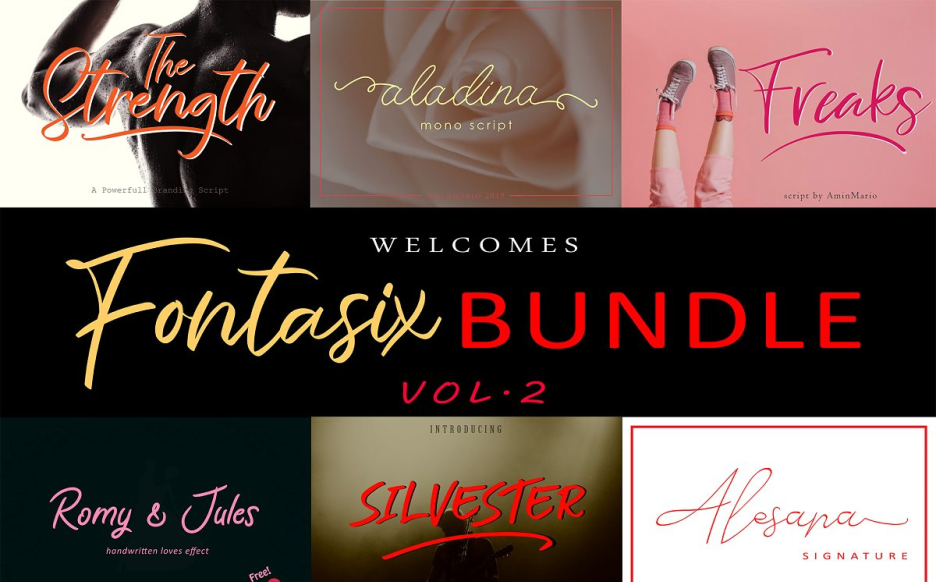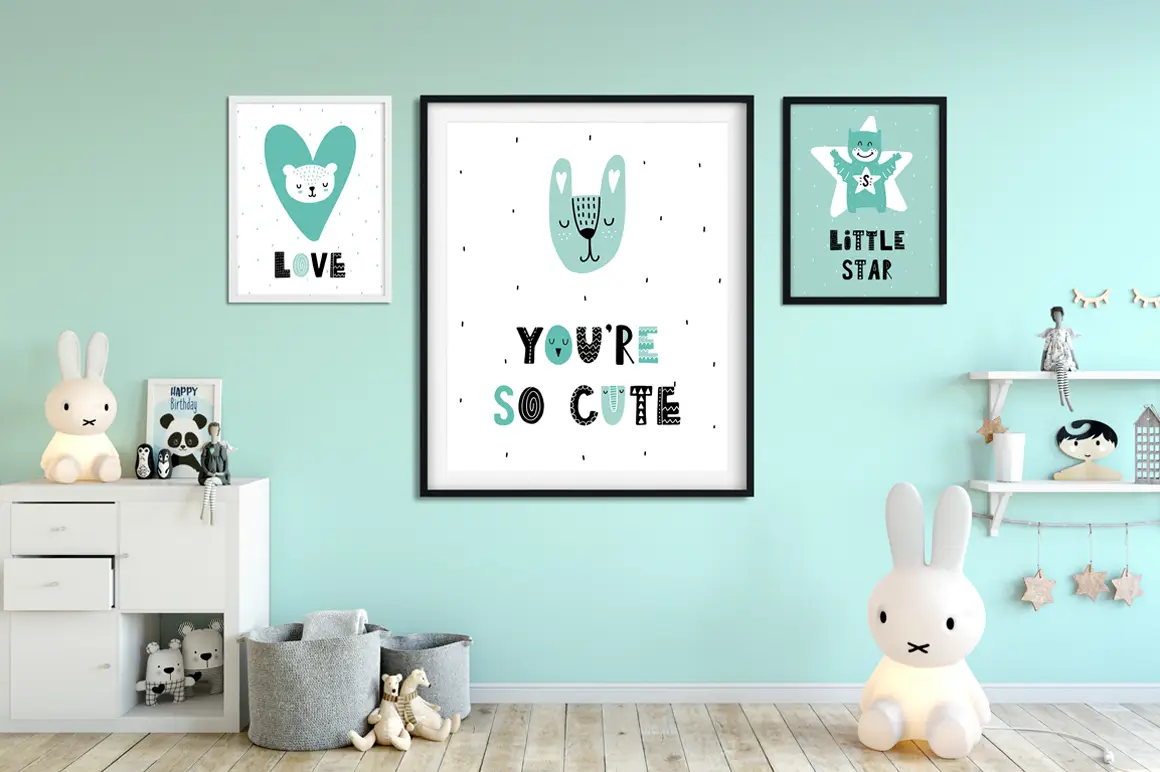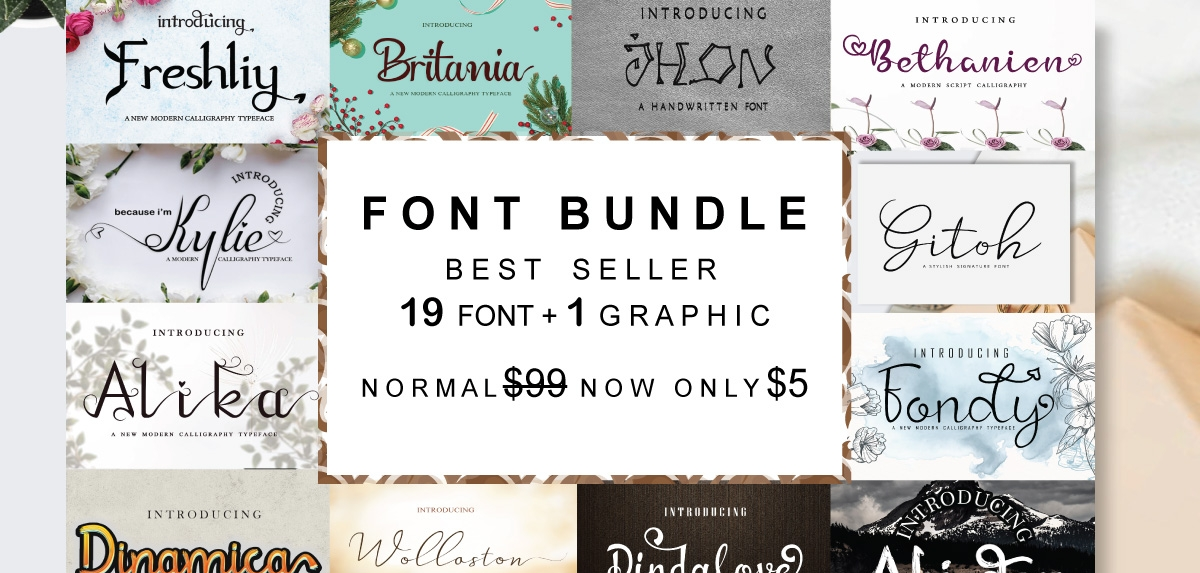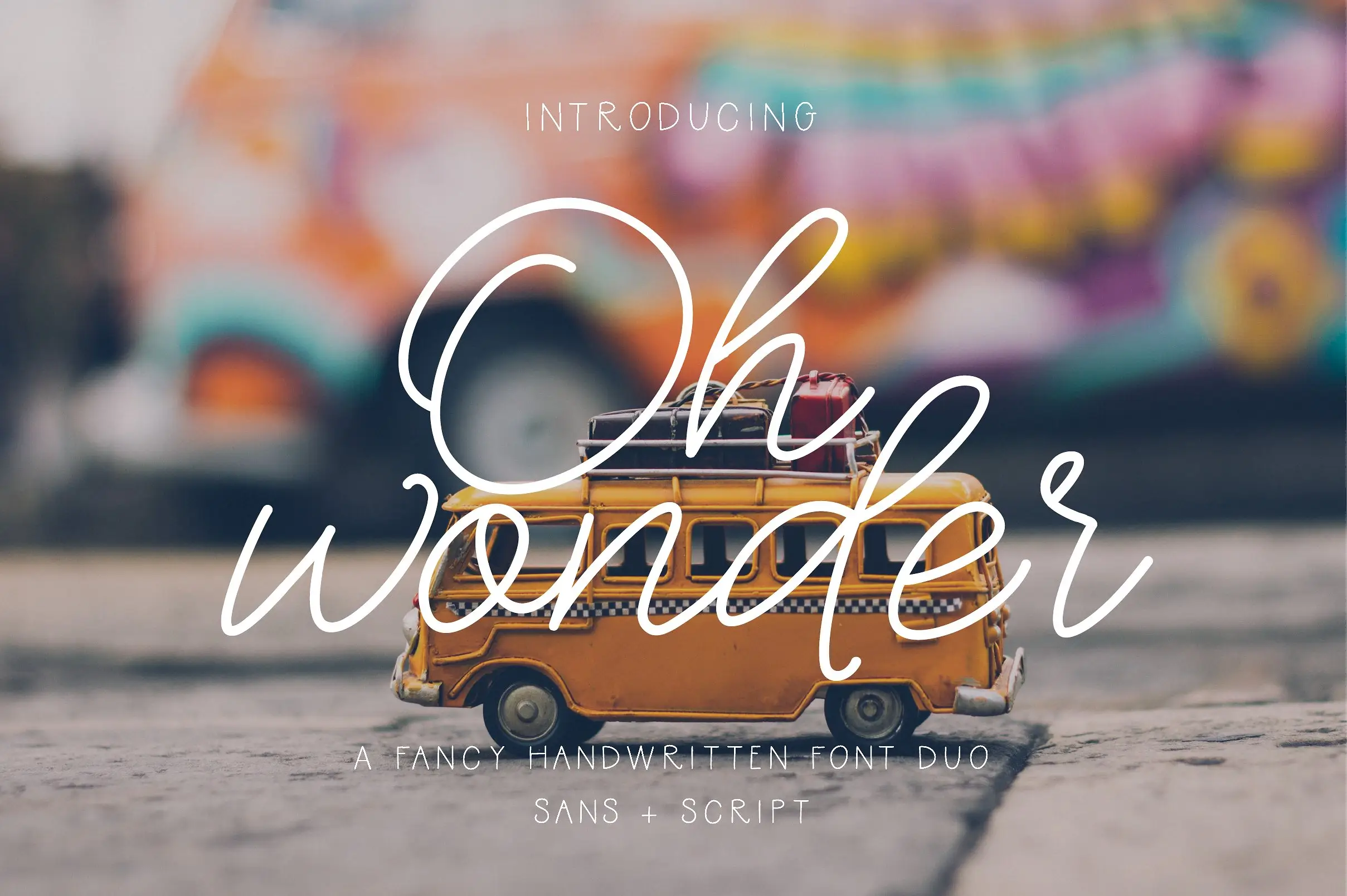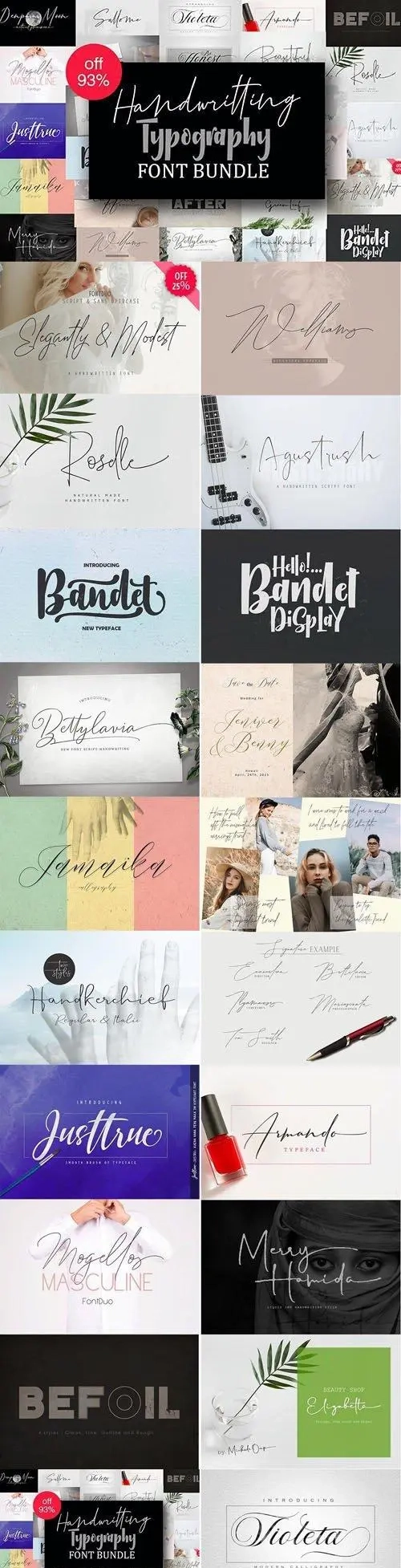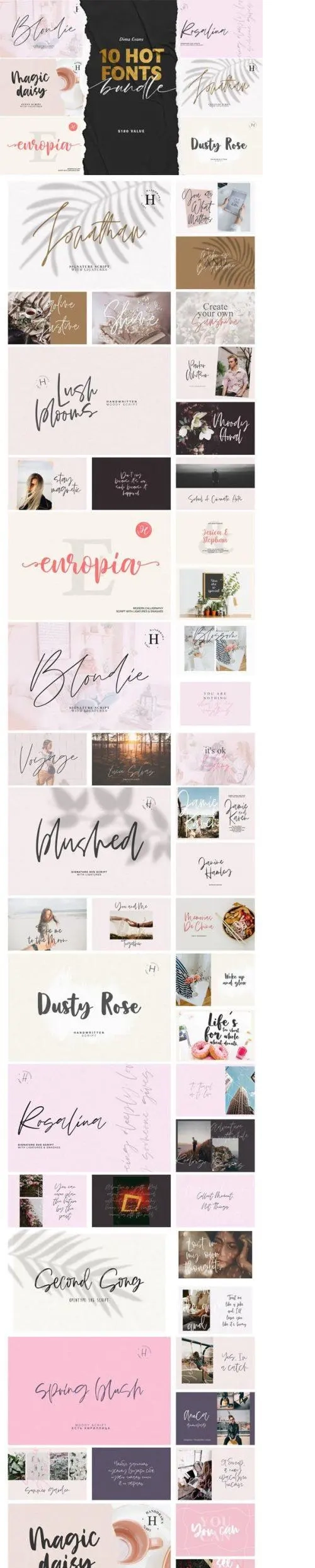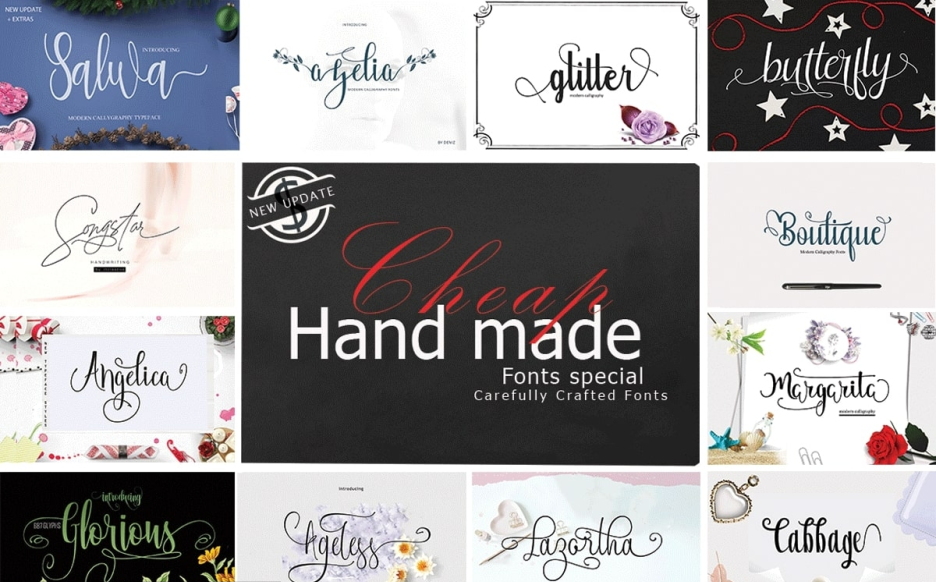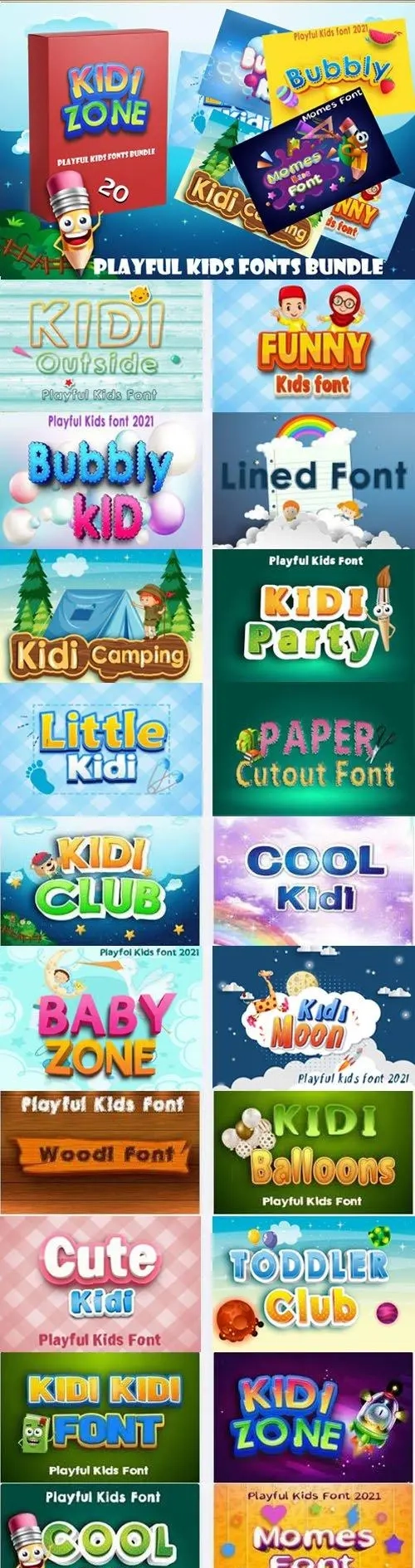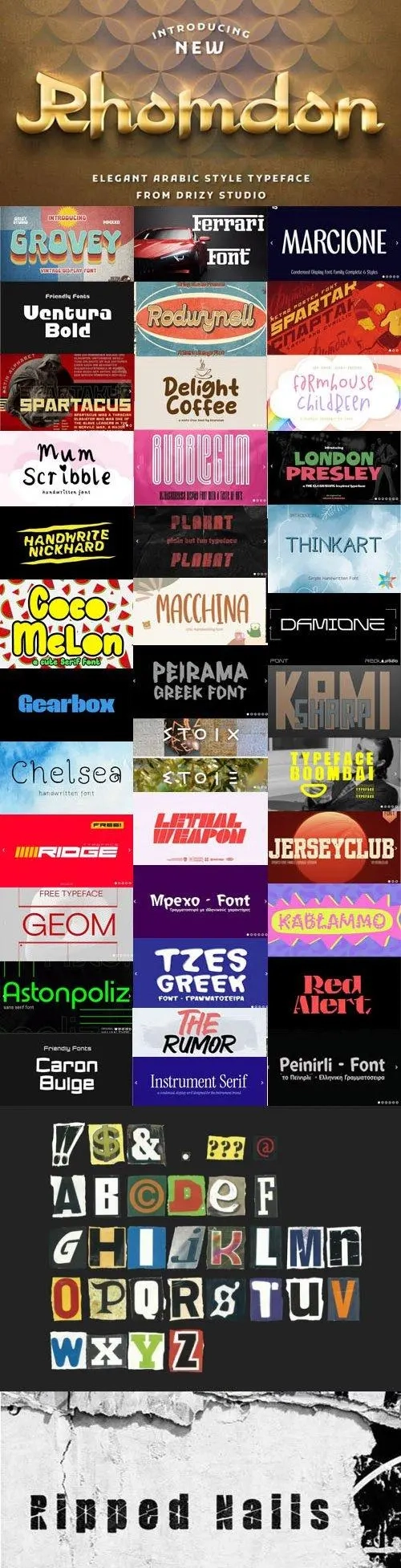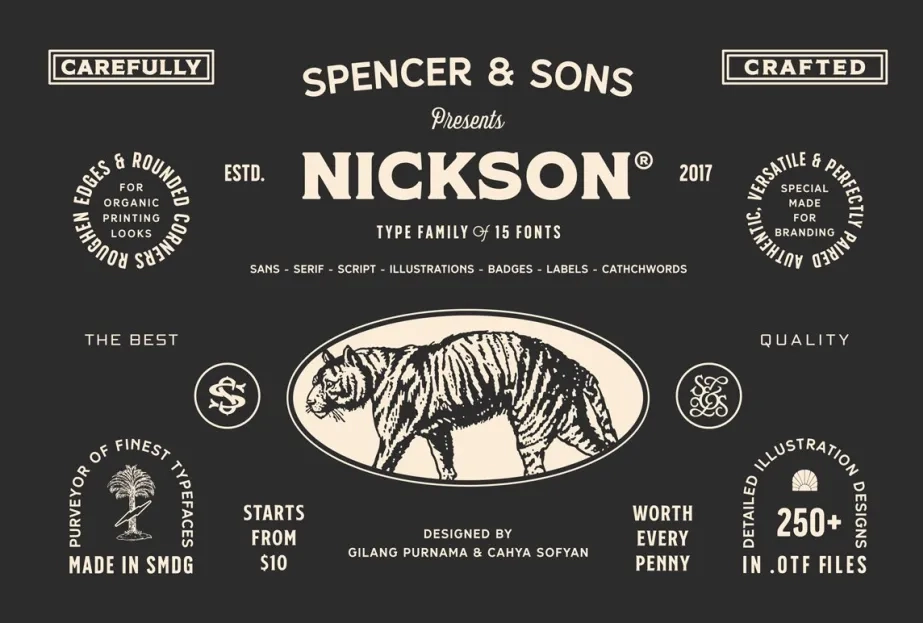
Welcome, fellow creative soul! 🎨✨ Are you ready to transform your design projects with typography that truly speaks? Whether you’re a logo wizard, a branding guru, or someone who just loves beautiful letters, the right font bundle can be your secret superpower. Today, I’m thrilled to walk you through the brushespack Collection Part 155 — a jaw-dropping lineup of 20 premium font bundles that will elevate your hand lettering game and make your typography sparkle. 🚀
Why Use These Premium Font Bundles?
Let’s face it — the right typeface can make or break a design. These bundles aren’t just collections of letters; they’re curated treasure chests filled with versatile styles that save you hours of hunting. From playful handwritten scripts to elegant serifs, you’ll have everything you need for branding, invitations, social media, and more — all in one click. 🖌️💎
Top 20 Premium Font Bundles Picks
Instant Hand Lettering
Want that authentic, hand-drawn vibe without picking up a pen? ✍️ This bundle delivers gorgeous lettering styles that feel personal and heartfelt — perfect for branding or a cozy wedding invite!
Kayla Font Bundle – 47 Premium Fonts
47 fonts in one bundle? Yes, please! 🎉 From elegant scripts to clean sans-serifs, this collection is your go-to toolkit for any project — logos, websites, or print. It’s like a designer’s Swiss Army knife!
Fontasix Bundle Vol 2
Variety is the spice of design! 🌶️ Fontasix Vol 2 mixes serifs, scripts, and display fonts so you can mix and match like a pro. Ideal for posters, branding, and eye-catching headlines.
Halloween Font Bundle
Spooky season never looked so good! 🎃👻 This bundle has all the creepy-cute scripts and displays you need for Halloween flyers, party invites, or gothic branding. Boo-tiful typography awaits!
The Heritage Brand Collection By Hsco
Timeless elegance meets modern design! 🕰️✨ This collection is all about classic sophistication — perfect for luxury branding, vintage labels, or anything that needs a touch of class.
Lovely Spring Font Bundle – 20 Premium Fonts
🌸 Spring is in the air! This fresh bundle brings light, airy scripts and cheerful serifs that bloom with creativity. Perfect for wedding invites, floral branding, or anything that needs a breath of fresh air.
March-2023 Font Bundle Vol.1 [40 Fonts]
40 unique fonts that cover every mood and style! 🎨 From sleek modern sans-serifs to romantic serifs, this bundle has your back for any creative challenge — websites, magazines, you name it.
Incredible Handwritten Fonts Bundle
Love the charm of real handwriting but want digital convenience? ✍️💖 This bundle has cursive, print, and decorative styles that add instant warmth to logos, invites, and quotes.
Kids Fonts Bundle – 20 Premium Fonts
Let’s get playful! 🧸🎈 This bundle is bursting with fun, colorful fonts perfect for children’s books, birthday invitations, or educational games. Joyful typography that kids (and parents) will adore!
Handwritten-Script Font Bundle
Natural flow meets digital perfection! 🖋️🔥 These script fonts mimic real handwriting beautifully — ideal for branding, logos, and elegant print designs that need a personal touch.
Impressive Font Bundle
Live up to its name! 🌟 This collection brings together serif, sans-serif, script, and display styles with multiple weights — a versatile dream for any designer wanting to impress.
It’S All Write School Font Bundle – 20 Premium Fonts
Back to school with style! 📚✏️ This bundle offers clear, playful handwritten fonts perfect for educational materials, flashcards, or fun classroom branding. Learning never looked so good!
The Magnificent Font Bundle – 55 Premium Fonts
55 fonts that are truly magnificent! 🏆 From elegant serifs to bold modern styles, this massive bundle ensures you never run out of typographic inspiration for any project.
Handwritten Font Bundle 1
The original charm! ✨ This carefully curated collection has elegant scripts and playful lettering that add a beautiful human touch to your projects — from quotes to wedding stationery.
Fonts Bundle 2
Simple, versatile, and essential! 🎯 This bundle features clean serifs, sans-serifs, and display fonts that work beautifully for modern branding, websites, and corporate materials.
Hot Fonts Bundle – 10 Handwritten Fonts
Keep it hot and handwritten! 🔥 10 unique styles that bring personality and flair to your logos, branding, and web content. Perfect for making your designs feel alive and authentic.
Handwritting Typography Font Bundle – 36 Premium Fonts
36 fonts that capture the soul of handwriting! 🖊️💫 With a wide range of styles and weights, this bundle is your ticket to warm, personality-driven design for any creative project.
Fontbundles – Tiny Joy Font – Scandinavian & Kids
Pure Scandinavian joy in a font! 🧸🌿 With its rounded, friendly shapes, this typeface is perfect for kids’ projects, nursery decor, or cheerful branding that feels cozy and inviting.